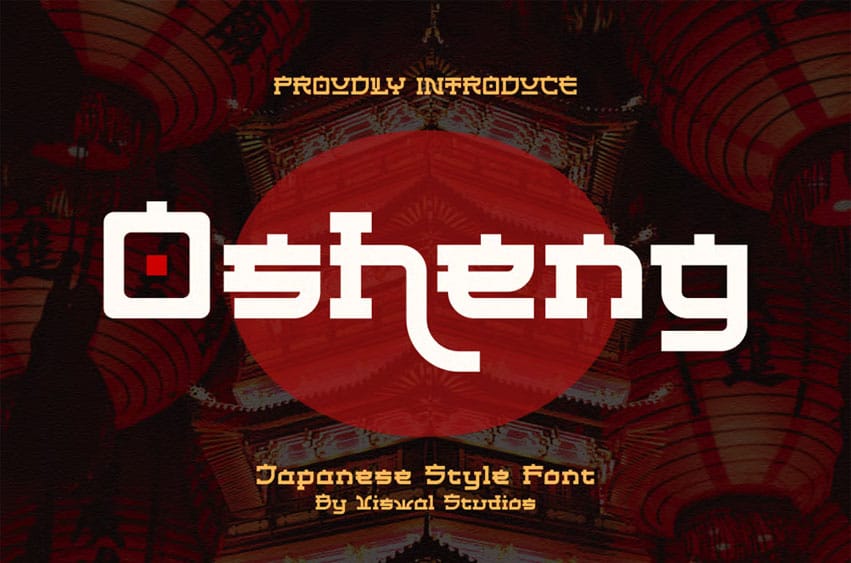
Osheng Font Is A Modern Japanese Font. Can Make It Easier To Convey The Message In Your Design. Font Is Suitable For Logo, Labels, Badge, Branding, Magazine, Poster, Title, Gigs, Covers And Etc.